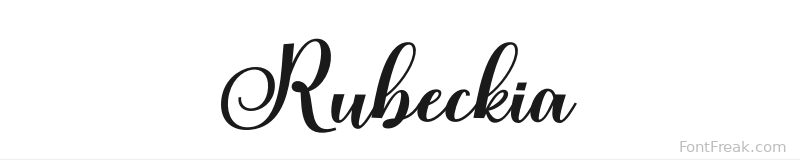
Rubeckia
About Rubeckia
Rubeckia by Kong Font is a charming script typeface that effortlessly blends elegance with a touch of playfulness. This font features a flowing design, characterized by its smooth curves and graceful strokes, making it an ideal choice for projects that require a personal and inviting touch. The stroke weight varies subtly, providing a sense of depth and sophistication, while the moderate contrast gives the letters a refined appearance. Rubeckia's generous spacing enhances its readability, ensuring that it stands out in both digital and print formats.
This versatile typeface is perfect for a variety of applications. It shines in wedding invitations, where its romantic flair can set the tone for a special day. Additionally, Rubeckia works beautifully on restaurant menus, adding a refined yet casual ambiance that invites diners to indulge. Graphic designers can utilize this font for branding projects, helping small businesses convey their unique identity with an artistic flair. It also suits greeting cards and promotional materials, where an appealing typeface can capture attention and engage audiences.
What sets Rubeckia apart is its ability to evoke emotion while maintaining clarity and professionalism. The combination of its elegant form and playful essence makes it a standout choice for anyone looking to elevate their design projects. For those interested in enhancing their typography toolkit, Rubeckia font free download offers a wonderful opportunity to incorporate this delightful typeface into your creative endeavors.